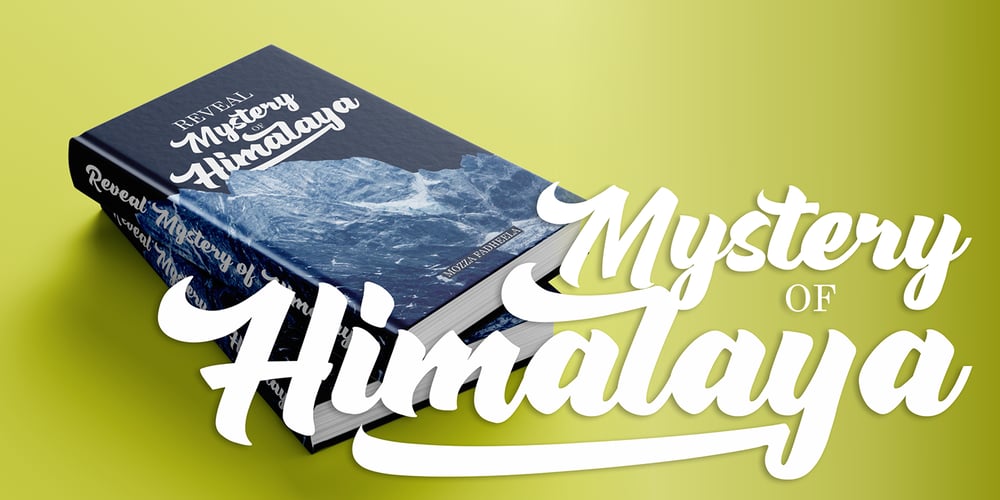
Rushing Nightshade Font Family was designed by Icep Anwar Fadhil and published by Figuree Studio. Rushing Nightshade contains 1 styles and family package options. Rushing Nightshade is a natural bold script, inspired by a vintage aesthetic. Made in combination with hand lettering, it comes with dramatic movement and it’s great for any next creative project that needs a retro vibe or modern touch. Ideal for logos, handwritten quotes, product packaging, header, poster, merchandise, social media and greeting cards. Features – Basic Latin A-Z and a-z – Numbers – Symbols – Stylistic Alternate – Stylistic Set – PUA Encode – Multilanguage Support To enable the OpenType Stylistic alternates, you need a program that supports OpenType features such as Adobe Illustrator CS, Adobe Indesign & CorelDraw X6-X7. There are additional ways to access alternates, using Character Map (Windows), Nexus Font (Windows), Font Book (Mac) or a software program such as PopChar (for Windows and Mac). If you have any question, don’t hesitate to contact me by email figuree.id@gmail.com